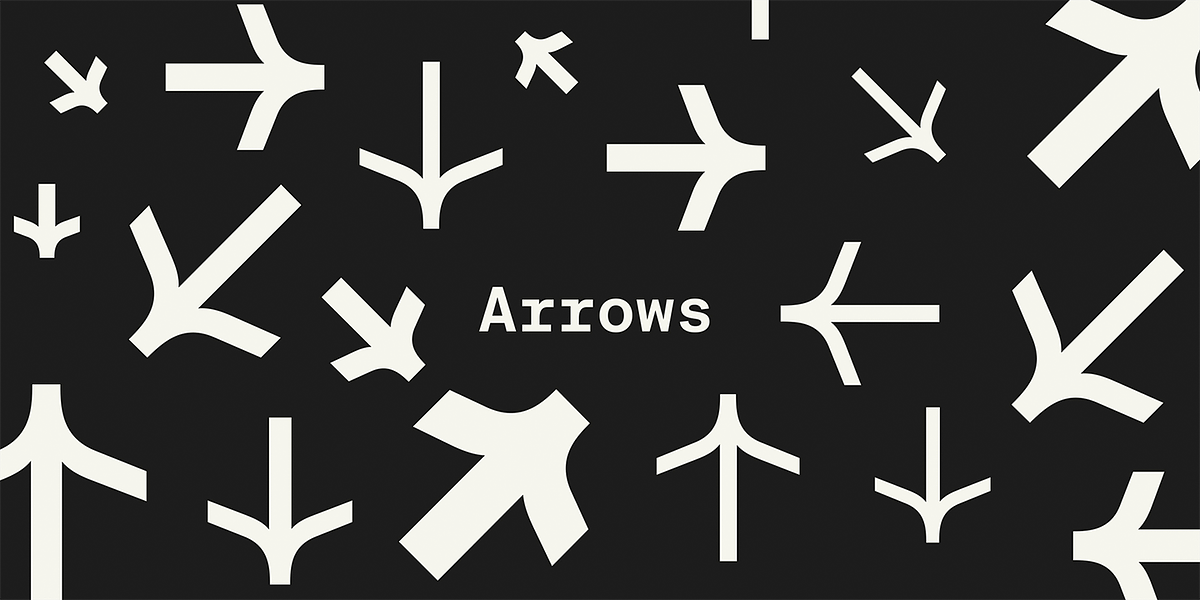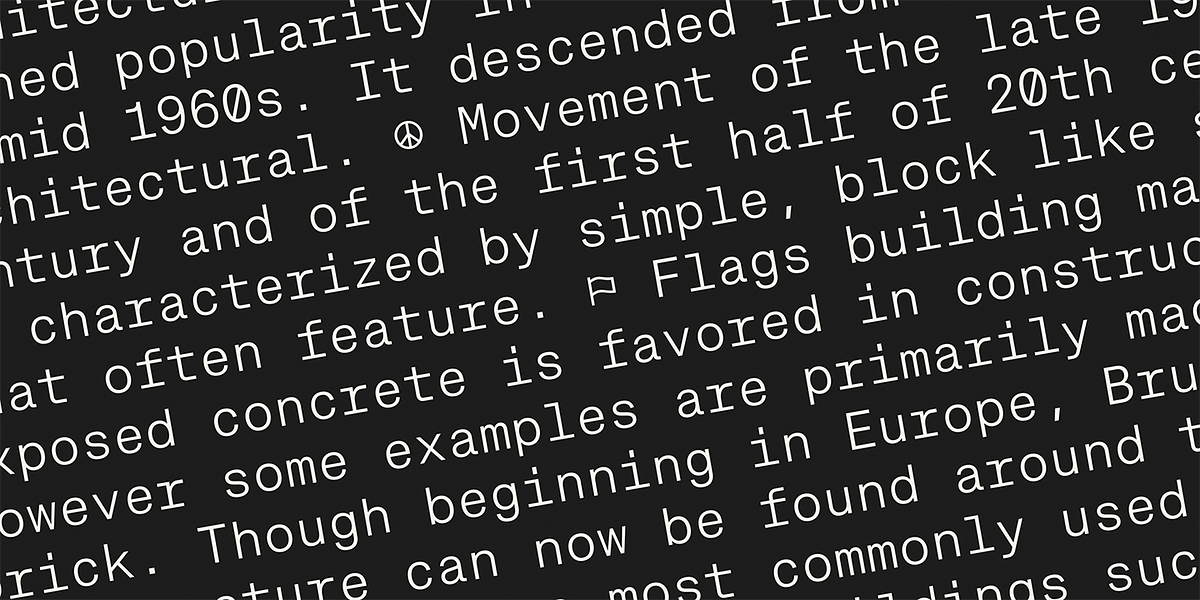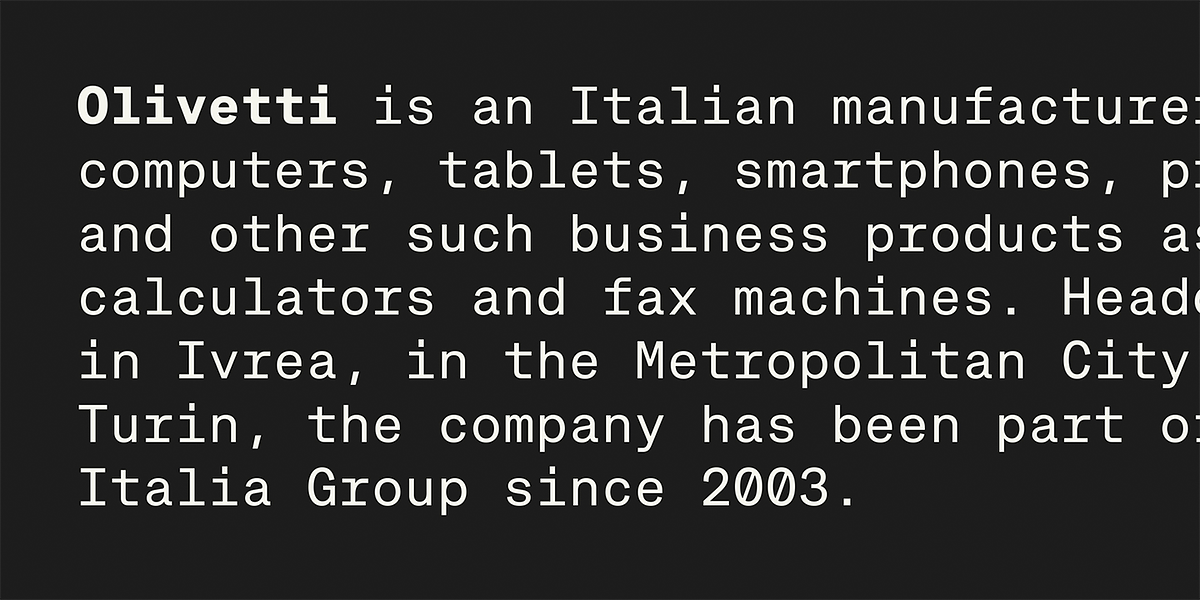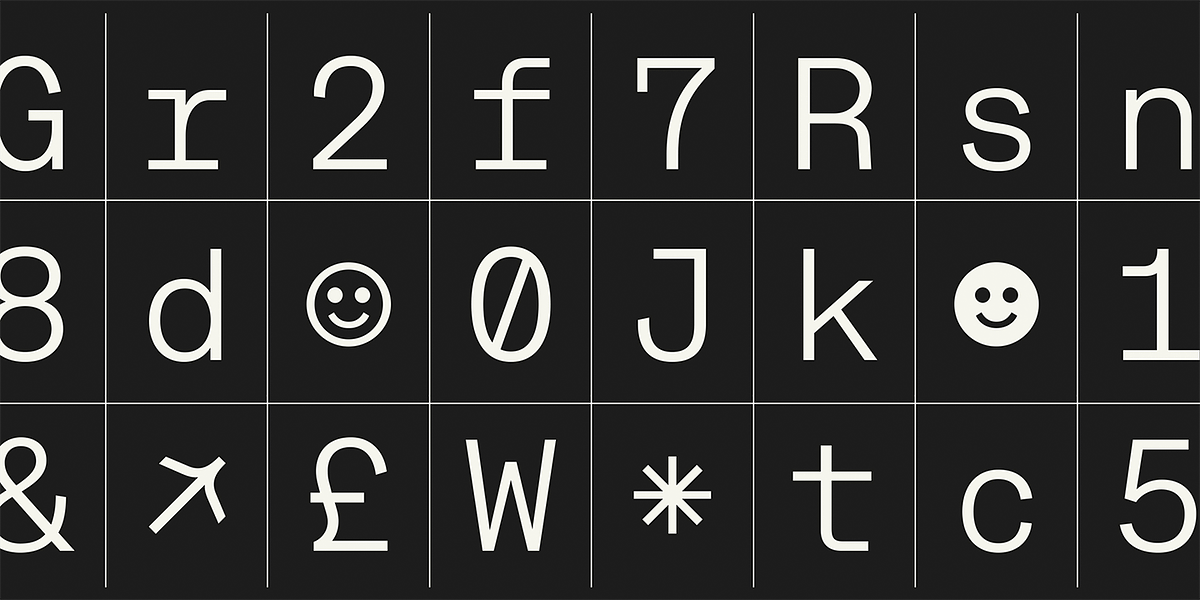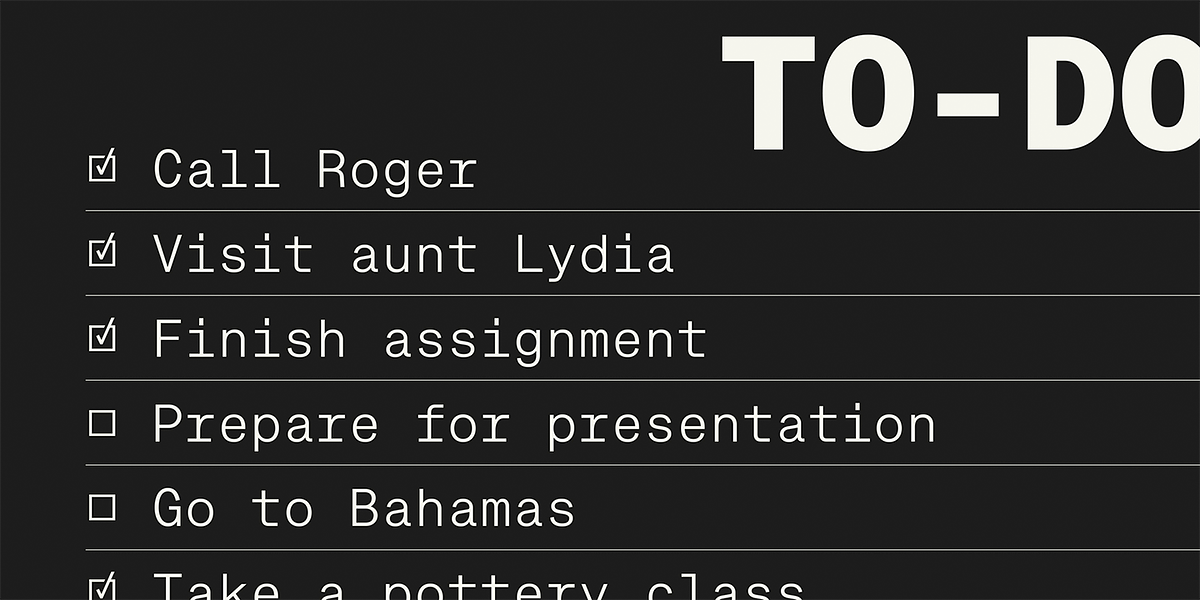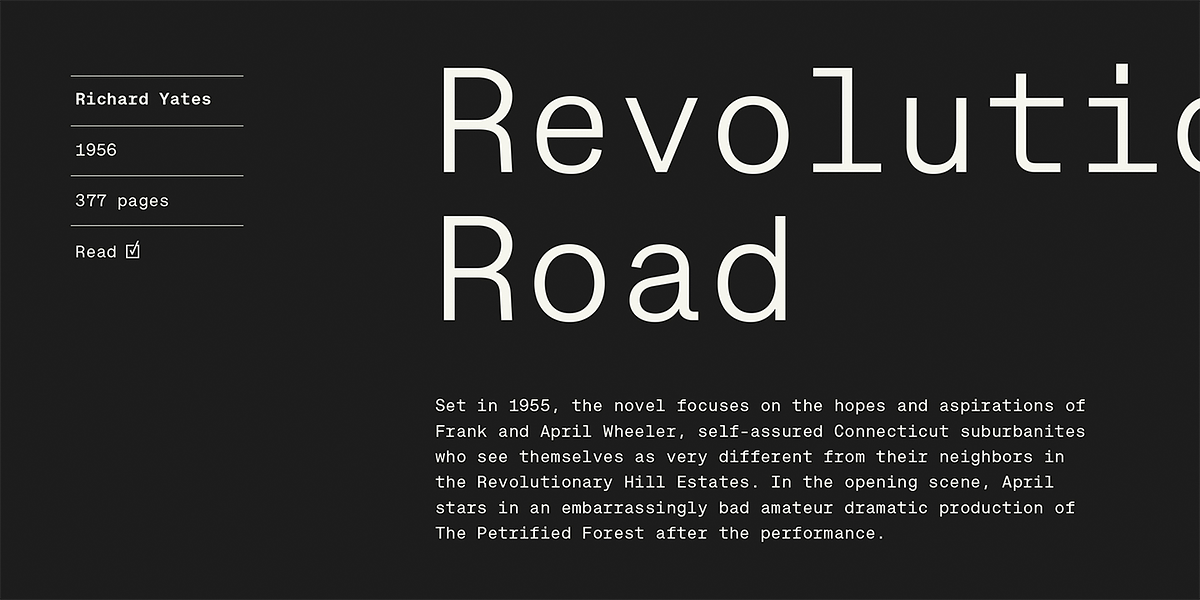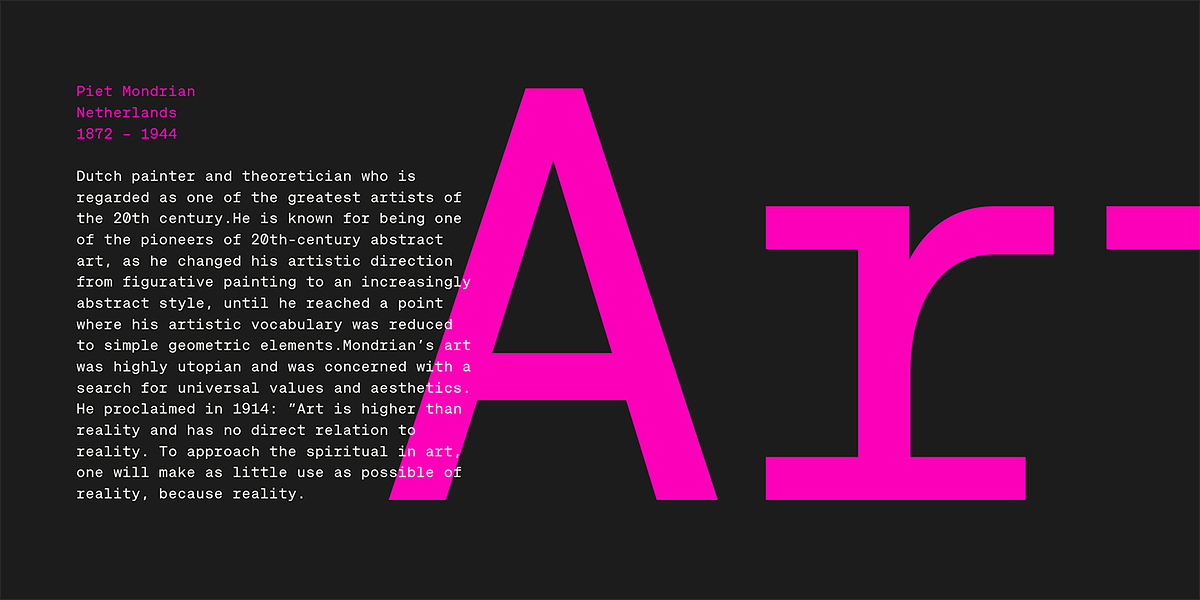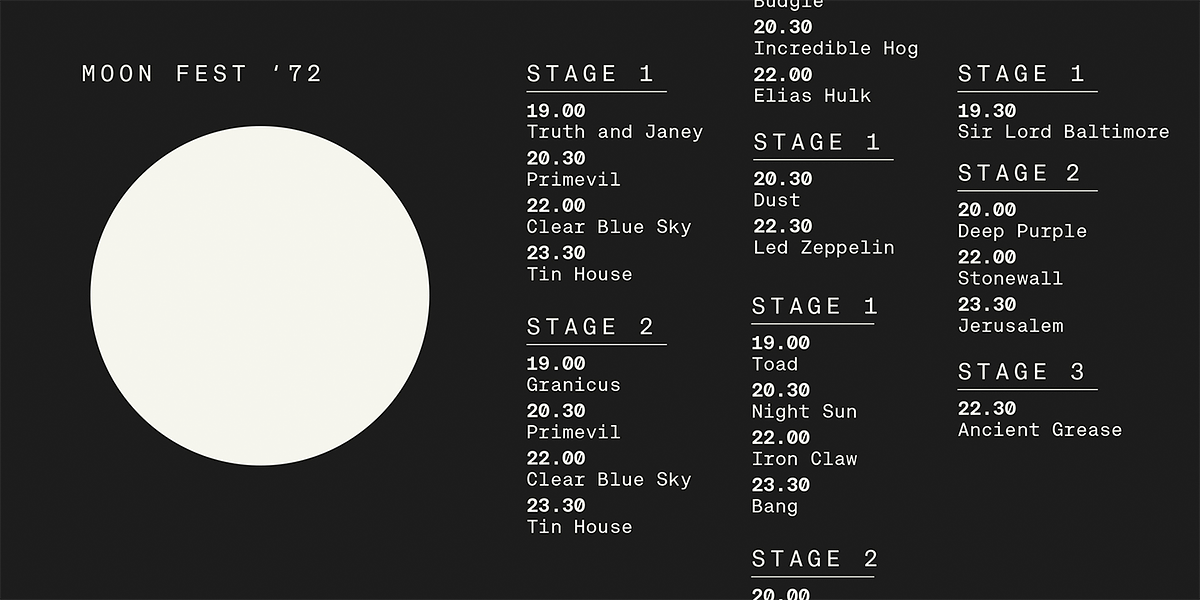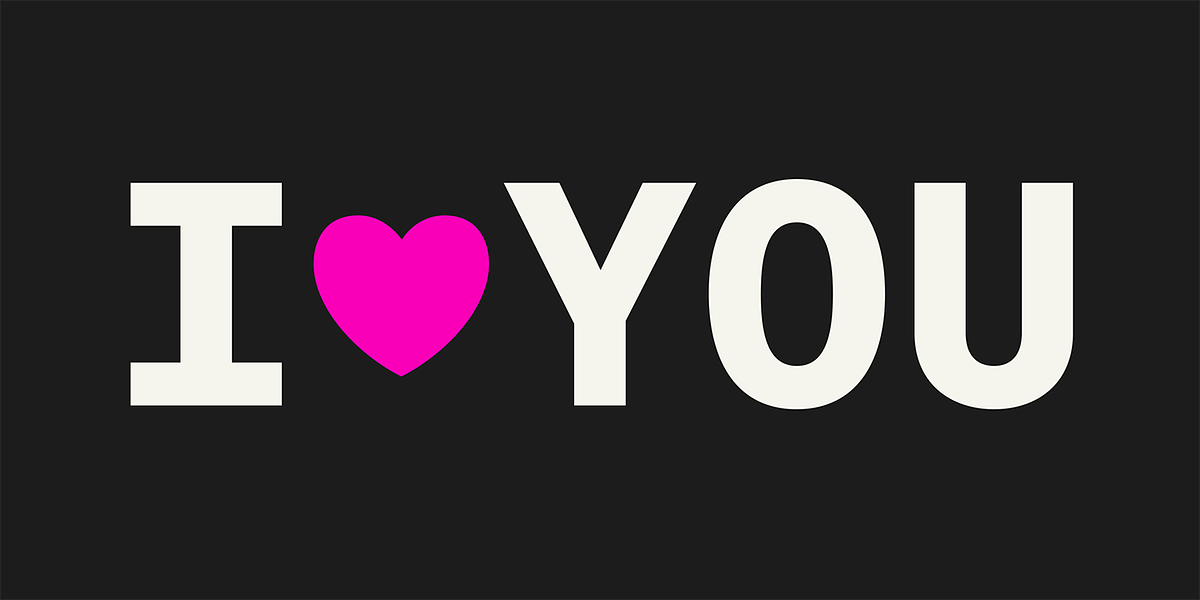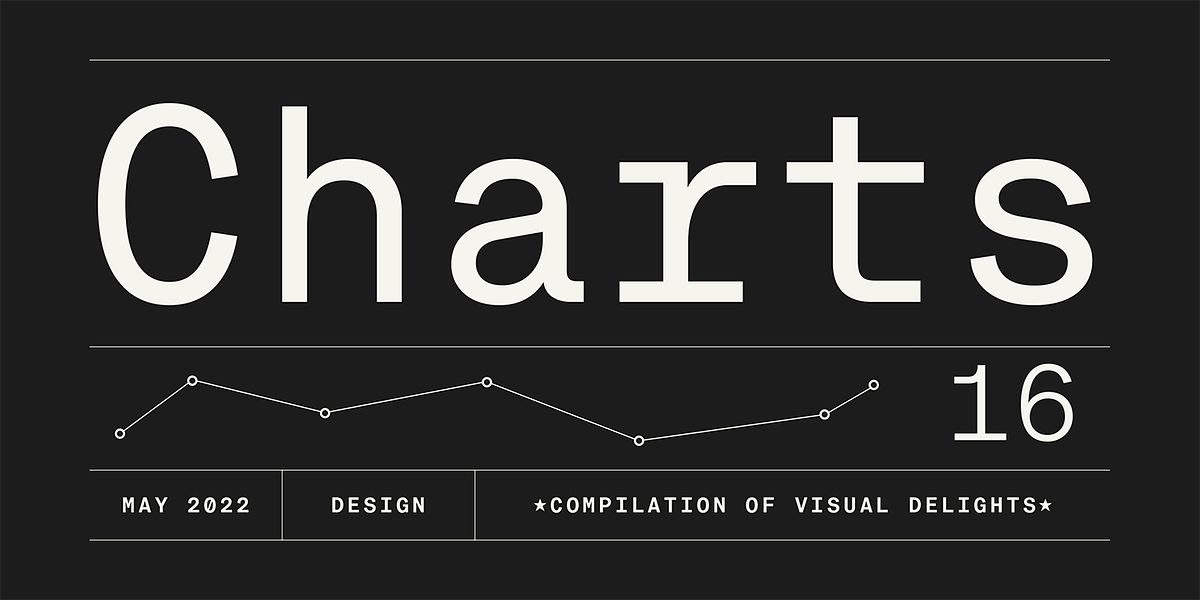
Approach Mono
Approach Mono is a geometric sans serif font designed for legibility in contexts requiring fixed-width characters. Its low contrast and clear punctuation make it suitable for programming code, tables, and other technical applications. While primarily utilitarian, its clean aesthetic can also be used effectively in modern communication materials like brochures and advertising.